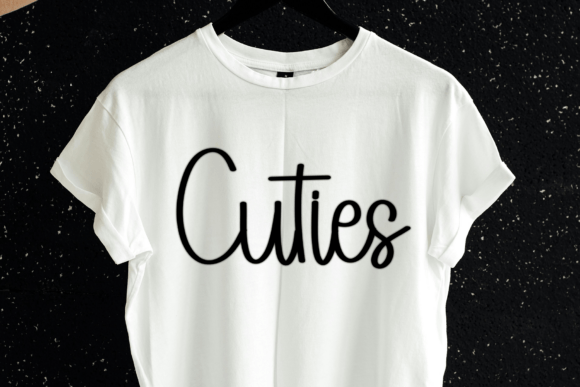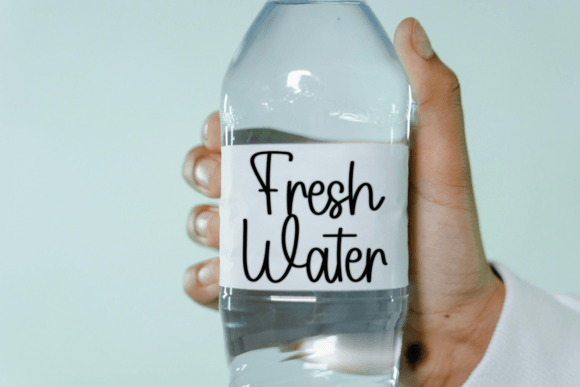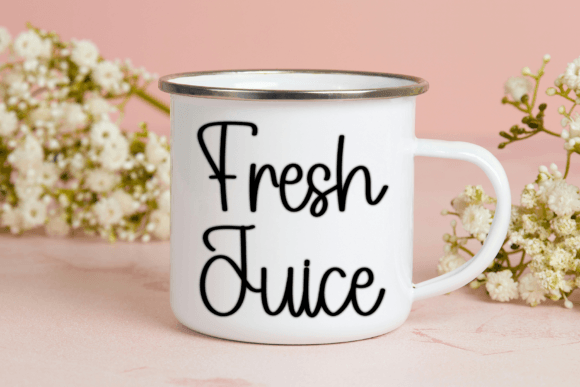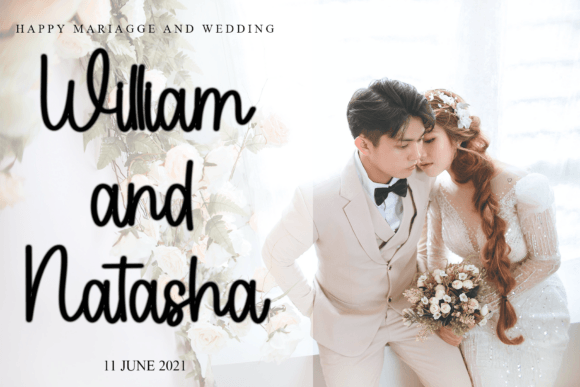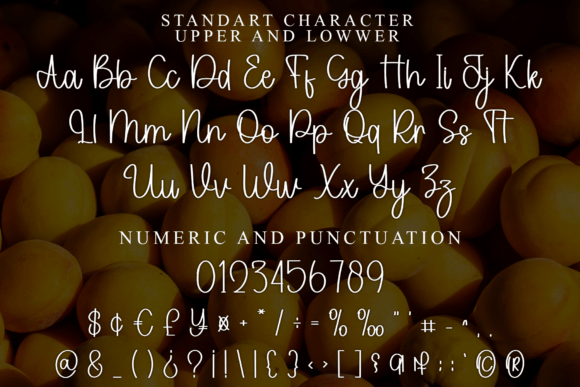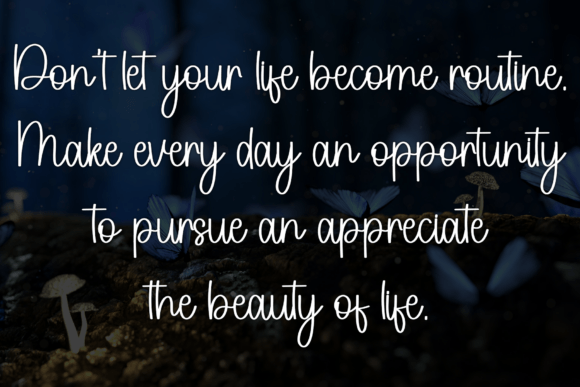
Discover the Sweet Charm of Apricot Font
As a designer, there’s nothing quite like the thrill of bringing a project to life. The hours of brainstorming, sketching, and refining all culminate in a moment of pure creative joy – when you finally see your vision take shape. And what better way to elevate that vision than with the perfect font? That’s where Apricot Font comes in – a stylish, elegant, and timeless classic calligraphy-inspired font designed to add a touch of sophistication to any project.
With its balanced and varied form, the Apricot Font is the perfect choice for designers looking to add a bit of flair to their work. Its PUA encoding makes it easy to access the font’s amazing glyphs and ligatures, allowing you to get creative with your typography. Whether you’re working on a wedding invitation, a branding project, or a blog post, the Apricot Font is sure to bring a touch of warmth and elegance to your design.
- Character Set: The font includes a comprehensive character set, supporting multiple languages, including Latin, Cyrillic, and Greek scripts, making it suitable for global designs.
- Unique Characteristics: Apricot Font features a distinctive, hand-drawn design with subtle texture and organic elements, giving it a unique, artistic feel.
Apricot Font Review
I recently had the chance to work with the Apricot font, and I have to say it’s a lovely addition to any design project. Here are my thoughts on what makes it shine:
- ✨ Unique style: The Apricot font has a distinctive, playful feel that sets it apart from more traditional fonts. It’s perfect for adding a touch of whimsy to your designs.
- ✨ Versatile: This font is great for both body text and headlines, making it a versatile choice for a wide range of projects.
- ✨ Friendly: The Apricot font is very readable, making it perfect for text-heavy designs or when you need to convey a sense of approachability.
- ⚠️ Limited character set: The Apricot font only includes a standard character set, which may not be suitable for projects that require a wide range of special characters or languages.
- ⚠️ Not ideal for formal designs: While the Apricot font is great for playful designs, it may not be the best choice for more formal projects or those that require a professional, conservative look.
Overall, I’m a big fan of the Apricot font, and I think it’s a great choice for designers who want to add a bit of personality to their projects. With its unique style and versatile use cases, it’s definitely worth considering for your next design project.
Tips for Getting the Most Out of Apricot Font
Use Apricot Font for creative and elegant designs, such as invitation cards, wedding invitations, or packaging designs.
Combine Apricot Font with other fonts to create a unique and eye-catching visual effect.
Experiment with different font sizes and colors to add depth and contrast to your design.
Apricot Font is ideal for:
Food and beverage packaging
Beauty and wellness branding
Home decor and furniture design